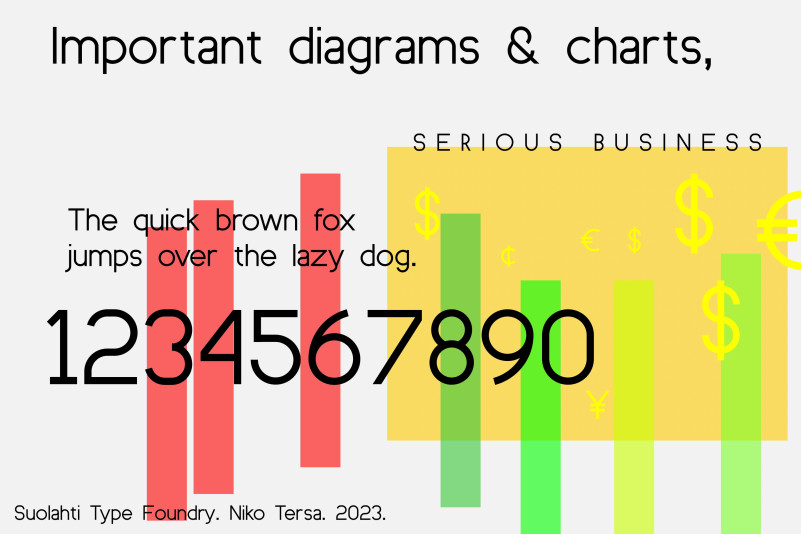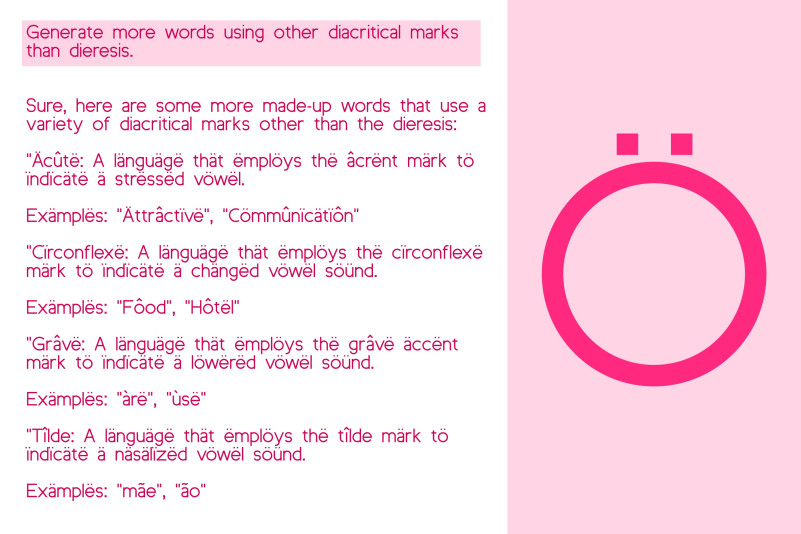
Suo Grotesque Font
Suo Grotesque Sans Serif Font is a geometric grotesque, a sans serif, that is. It has very charming “constructed” or “mechanically geometric” look.